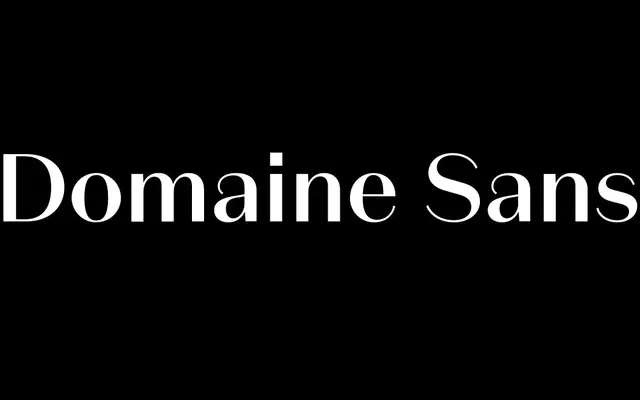
Domaine Sans Display
Klim Type Foundry · Kris Sowersby · 2014
A high-contrast display sans by Kris Sowersby that explores contrast in sanserifs, made for fashion and editorial display.
A high-contrast display sans by Kris Sowersby, sitting at the largest size in the Domaine Sans system. Sixteen styles run from Thin to Black with matching italics, with swashes and old-style or lining numerals available through OpenType. Klim describe Domaine Sans as an exploration of an unpopular genre, sans serifs with contrast, and at display sizes the stress and modulation read clearly, which is why fashion and editorial brands such as Vanity Fair's Hollywood issue have reached for it.
Klim classifies it as Lineal: Grotesque, High Contrast; the display cut of Domaine Sans, an exploration of contrast in sans serifs alongside Domaine's earlier work in the Latin serif genre.